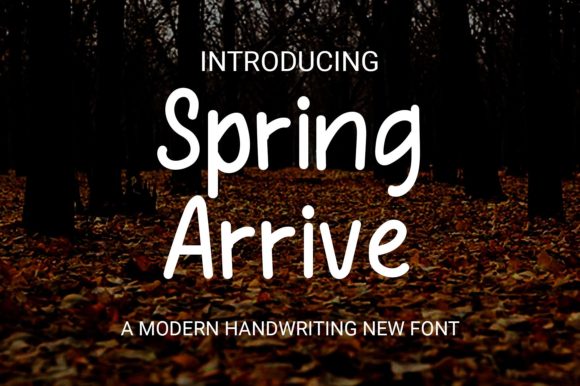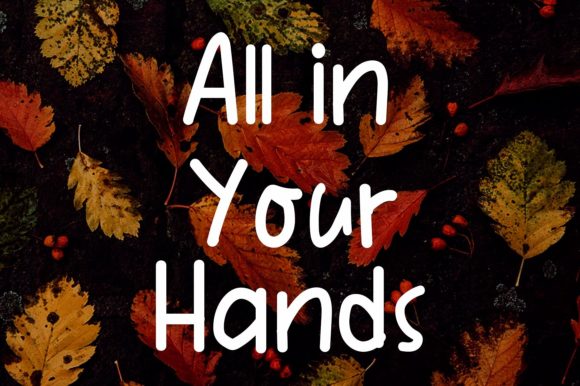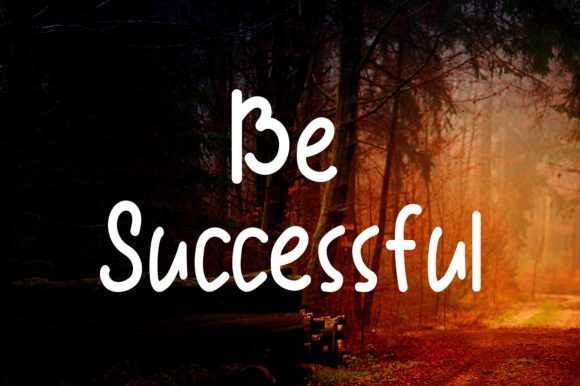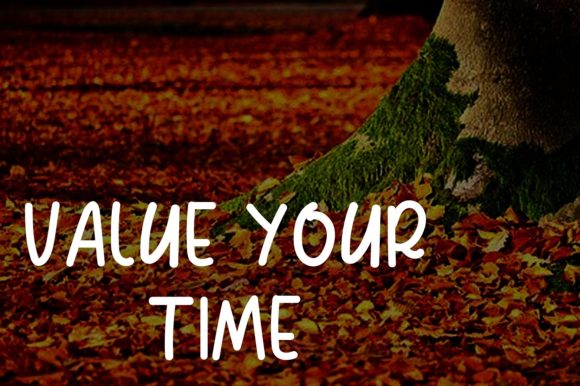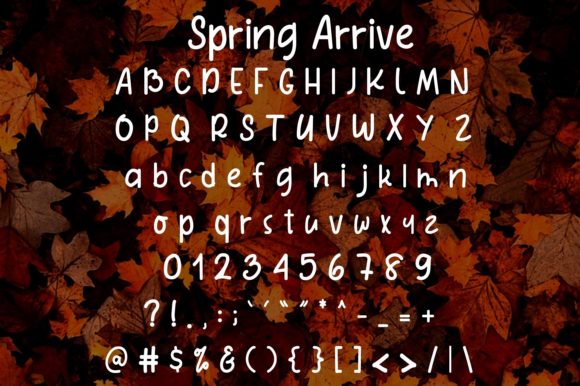
Spring Arrive Font
About Spring Arrive Font
Introducing “Spring Arrive,” a charming and casual handwritten font that adds a touch of whimsy to any project. Whether you’re crafting content for Instagram or embarking on DIY endeavors, this versatile font effortlessly elevates creative ideas into works of art.
With its playful yet elegant demeanor, Spring Arrive is perfect for a multitude of purposes. From logos to headings, t-shirts to letterheads, signage to labels, news articles to posters, badges, and beyond, this font lends a distinctive flair to any design endeavor.
Crafted with precision and care, Spring Arrive exudes a unique personality that breathes life into every word. Its fluid strokes and effortless charm capture the essence of springtime, infusing your creations with a sense of joy and vitality.
Experience the versatility of Spring Arrive and unleash your creativity across a wide range of projects. Whether you’re a seasoned designer or a DIY enthusiast, this font offers endless possibilities for expression and customization.
Elevate your designs with the playful elegance of Spring Arrive and watch as they come to life with style and personality. Let your imagination soar and create memorable pieces that leave a lasting impression on your audience.
Discover the magic of Spring Arrive and embark on a journey of creativity and inspiration. With its captivating charm and endless versatility, this font is sure to become a go-to choice for all your design needs.